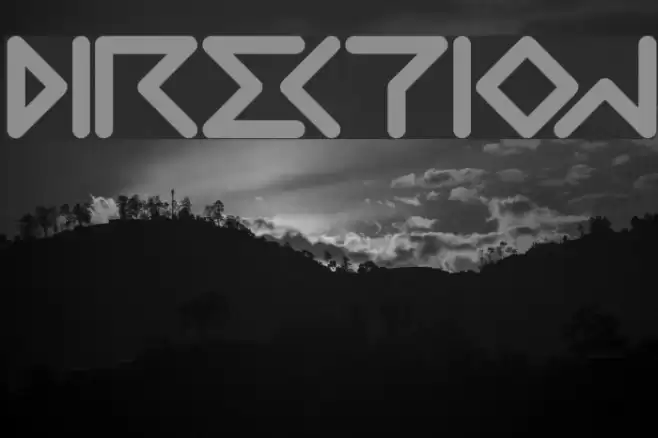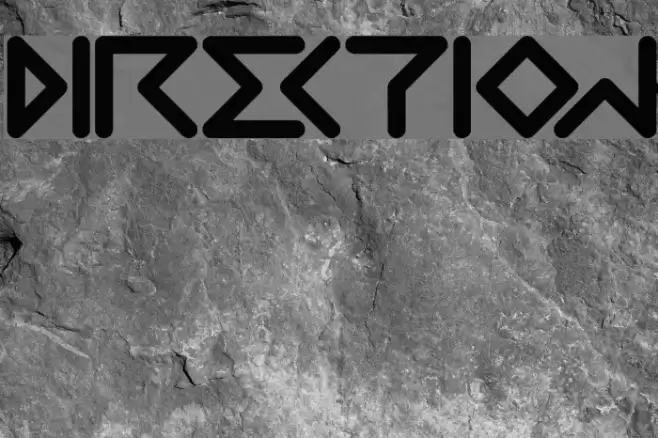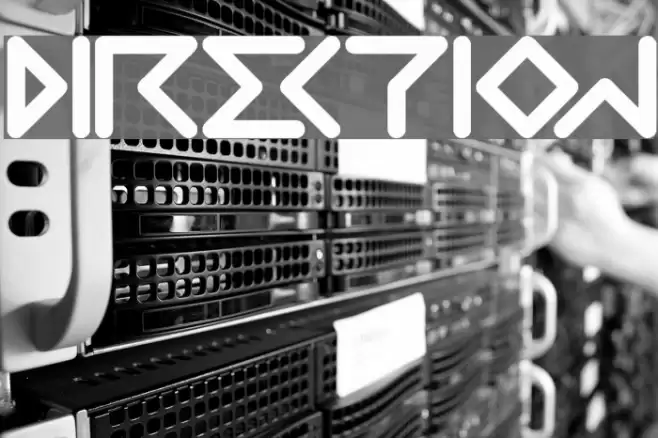
DIRECTION Font
DIRECTION Description
This font features a futuristic and geometric design, characterized by sharp angles and bold lines. Each character is crafted with a distinct angular style, creating a sense of movement and direction. The uppercase letters are consistent in height, while the lowercase letters maintain a similar angular aesthetic. The numerals and special characters follow the same design principles, ensuring uniformity across the font. This typeface is visually striking, making it ideal for projects that require a modern and edgy look.
A futuristic, angular font with bold lines and geometric shapes from Uncategorized fonts.
- Proposed Projects: Ideal for sci-fi themed designs, video game interfaces, tech branding, and modern posters.